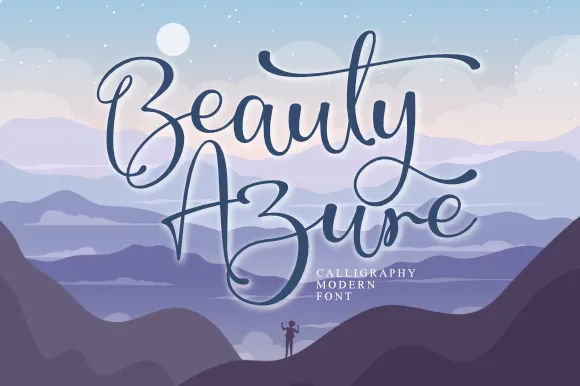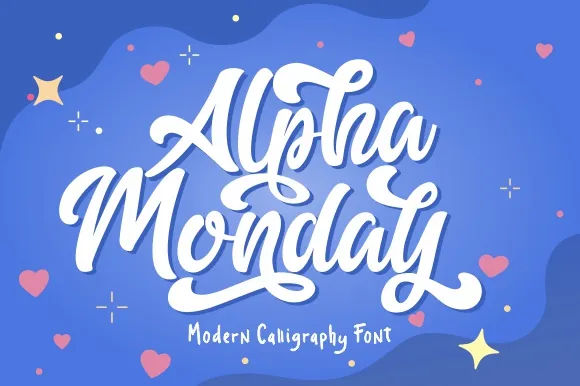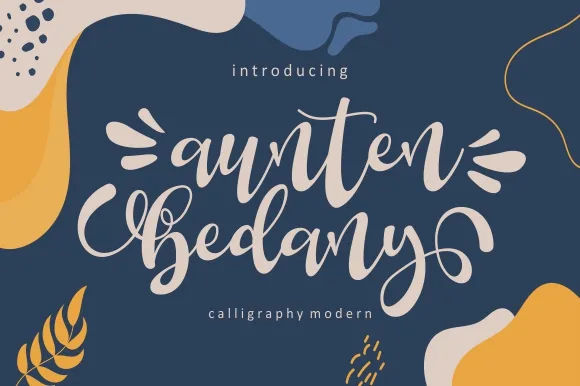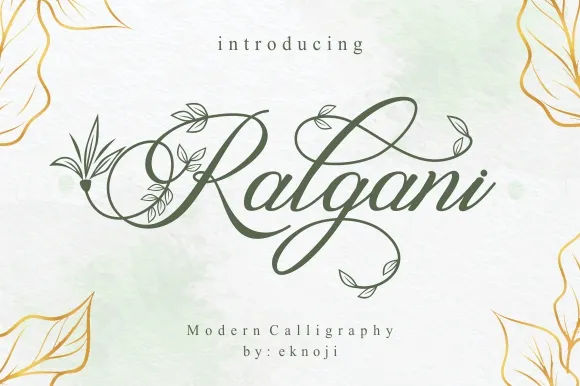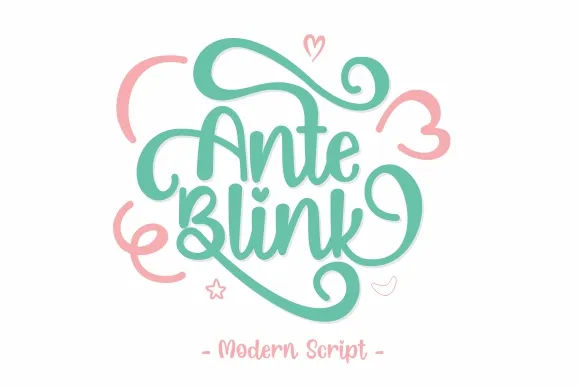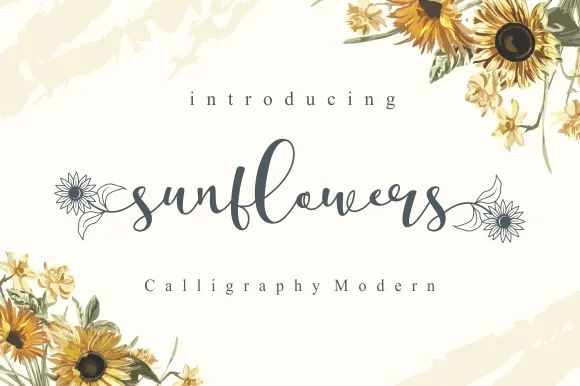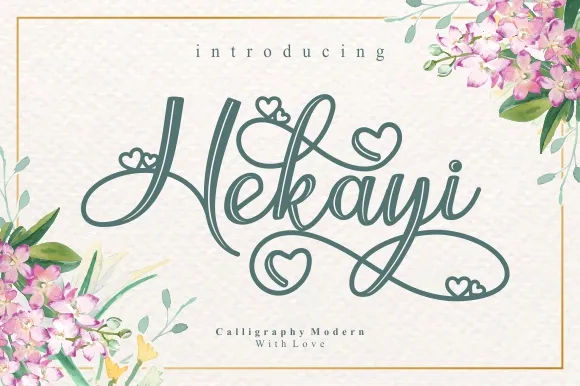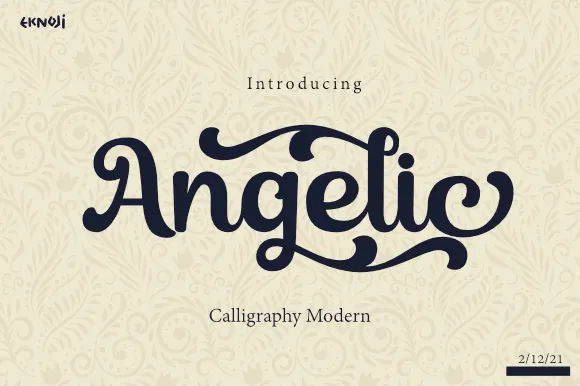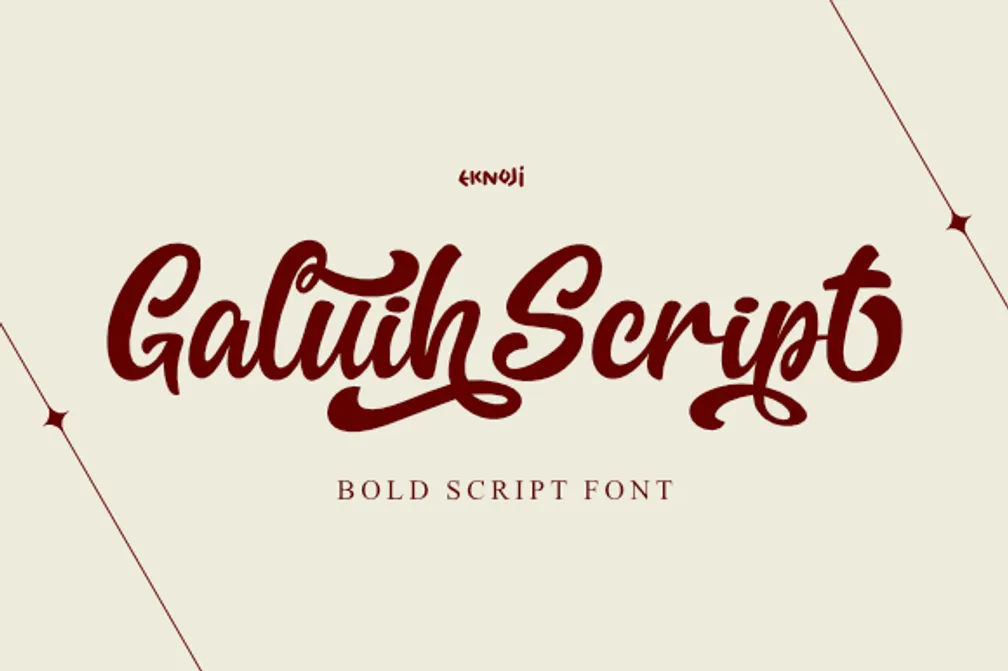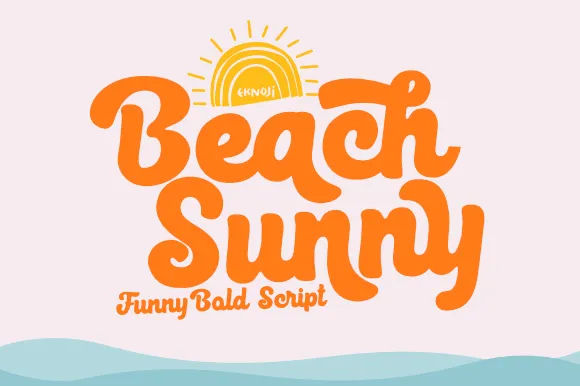
A script embroidery font is a handwritten-style typeface used in embroidery to create an elegant and professional look. Its flowing, connected letters give designs a soft yet polished appearance that works well for logos, fashion labels, merchandise, and custom products.
Compared to standard serif or sans-serif fonts, script fonts feel more personal and expressive to apply. In this article, you will discover 15 of the best embroidery fonts ready to enhance the visual quality of your next embroidery project!
Below are the 15 most beautiful script embroidery fonts carefully selected to help you create elegant, readable, and professional embroidery designs for your projects.
1. Beauty Azure
As beautiful as its name, this stylish script font delivers an elegant look that works perfectly for merchandise, family portraits, and fashion designs.
2. Angelic
Angelic embodies timeless elegance with its flowing curves and polished handwritten style. As a refined script embroidery font, it’s perfect for applicable custom products that require a premium look.
3. Galuih Script
Characterized by flowing monoline strokes, it commands attention with effortless elegance. Perfect for projects that require a strong yet graceful presence.
4. Beach Sunny
Beach Sunny delivers a lively and expressive look through its smooth, flowing letterforms, making it a versatile script font embroidery choice that feels both relaxed and self-assured.
5. Anhay
Anhay is a bold brush-style script embroidery font with expressive, sweeping strokes that bring dynamic energy and artistic flair to any design, especially custom lettering.
6. Amalia
Amalia offers an elegant script style with graceful connected letters. As a refined script embroidery font, it is a sophisticated choice for high-end branding.
7.Arbiy
With its clean curves and graceful flow, Arbiy presents a modern yet refined aesthetic. It works beautifully for designs that call for a chic, polished, and professional finish.
8. Rottedim Signature
Both personal and luxurious, this script embroidery font has it all. It features an elegant flow and contemporary flair that deliver a stylish signature aesthetic with a refined finish.
9. Beabella
If you want to blend classic and modern appeal, Beabella is a perfect choice. This font features smooth, flowing letterforms that create a warm and charming impression.
10. Alpha Monday
With its strong presence and lively curves, Alpha Monday delivers a vibrant script aesthetic that feels both modern and stylish. As part of the bold embroidery fonts script collection, it is perfect for creative projects that need an eye-catching impact.
11. Auntie Bedany
Aunten Bedany features sleek, elegant letterforms with smooth transitions and refined curves. It is ideal for fashion labels and custom merchandise for a professional finish.
12. Ralgani
Ralgani features beautifully connected letters that blend artistic style with polished elegance. As a refined script embroidery font, it brings a timeless and high-end touch to branding and creative projects, such as wedding and fashion design.
13. Ante Blink
Bring something fresh and unique to your design, especially when aiming for a stylish and eye-catching look. This embroidery cursive font features graceful strokes with clean, connected letterforms that create a polished and distinctive finish.
14. Sunflowers
Sunflowers blends friendly charm with classic script appeal through its fluid, expressive strokes. It adds a delightful and stylish touch to visual branding and personalized design work.
15. Hekayi
Hekayi is an elegant embroidery cursive font with sleek, flowing letterforms that effortlessly blend sophistication and style. Its refined script design enhances premium branding and custom embroidery projects with a polished finish.